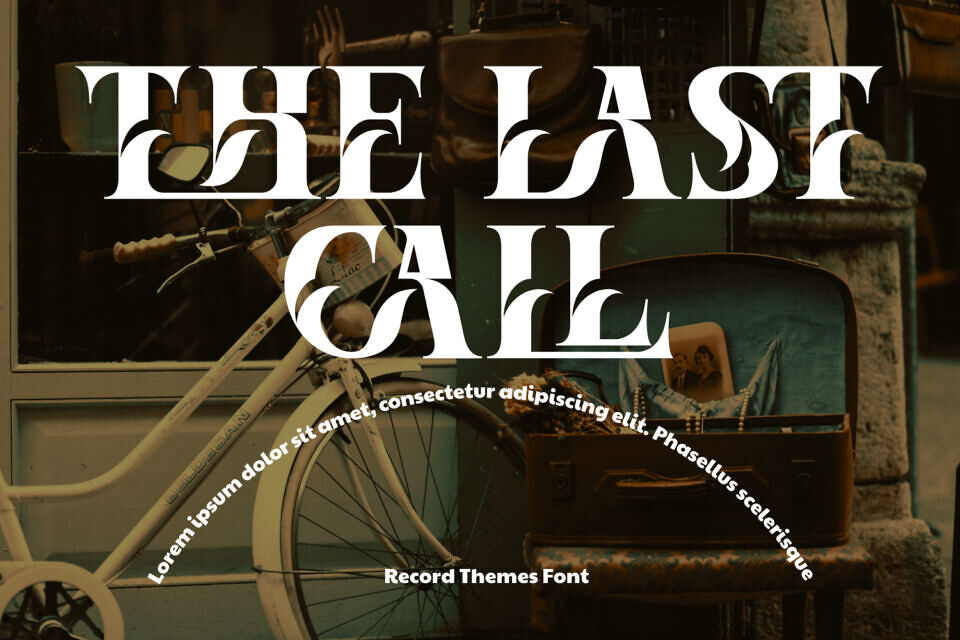
Record Themes is an elegant Ornamental Serif Display Font that blends classic serif structure with modern decorative artistry. Each letterform features sculpted leaf-like curves and bold negative-space detailing, creating a dramatic contrast that feels luxurious, stylish, and visually captivating.
This unique interplay of sharp serif edges and smooth organic curves makes the font perfect for high-end branding, editorial design, packaging, logos, posters, and creative statement typography. Designed with versatility and artistic expression in mind, Record Themes brings a refined yet contemporary feel to any project.